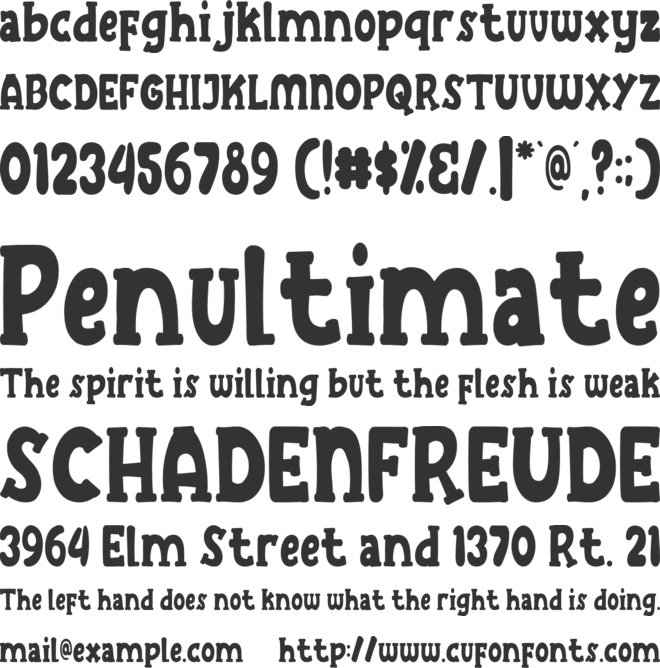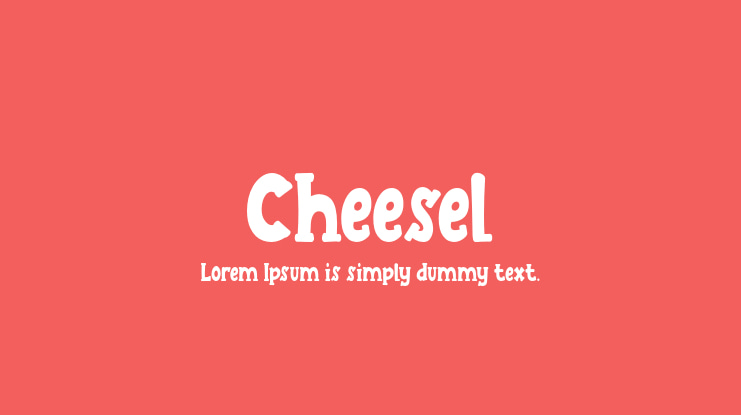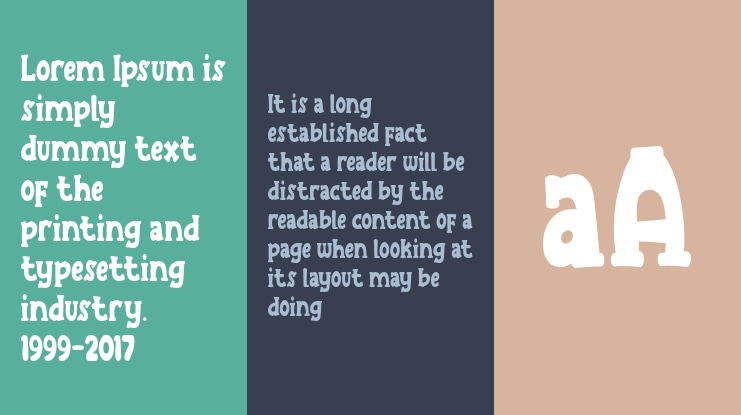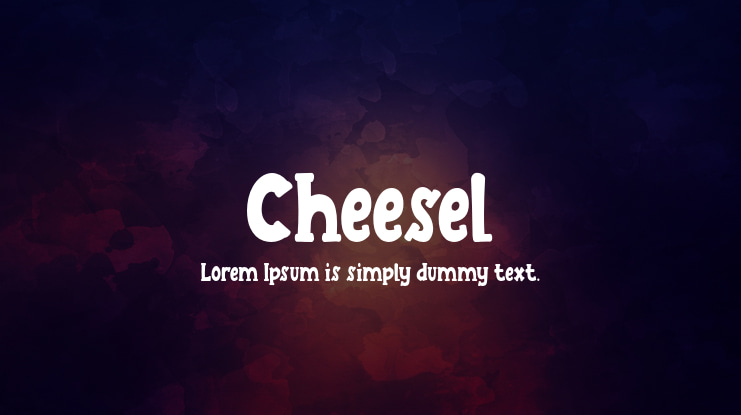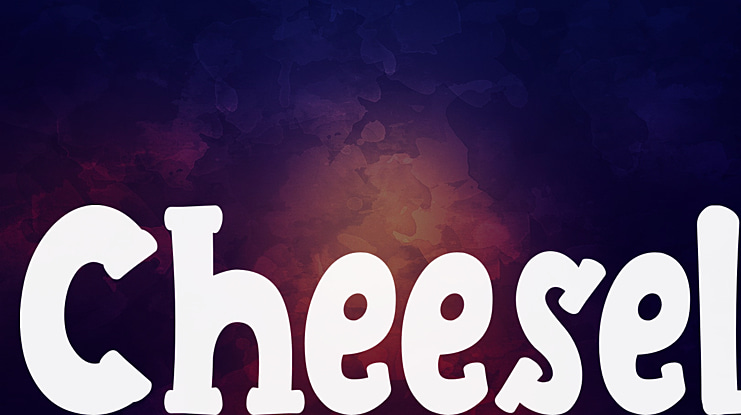
Cheesel Font
Introducing our new release, Cheesel Display Typeface. This typeset is perfect for brand logo, invitations, greeting card, or even any kind of project. With multilingual feature and style variations, this typeface would further enhance the aestethical aspect of your work.Visit our website :https://displaytypefont.com/product/cheesel/